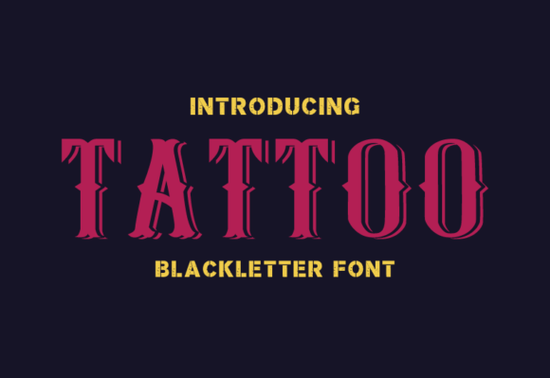
If you’ve ever wanted your designs to carry the weight and character of traditional tattoo lettering, Tattoo Font offers a clean yet bold blackletter style that’s both timeless and versatile. Designed with clarity and impact in mind, it brings the raw energy of hand-inked script into digital projects without overwhelming your layout. Whether you’re creating merch, branding materials, or personal art, this font helps you communicate confidence and authenticity two qualities that resonate well with audiences across print-on-demand shops, small businesses, and craft communities.
What makes Tattoo Font stand out among blackletter styles?
Blackletter fonts often lean heavily into ornate detailing, which can limit their use in modern design. Tattoo Font avoids that pitfall by balancing classic gothic structure with simplified strokes. The result? A typeface that feels rooted in tradition but works seamlessly in contemporary contexts from apparel graphics to social media banners.
Its thick verticals and sharp serifs give it immediate visual presence, while consistent spacing ensures readability even at smaller sizes. That’s especially useful if you’re designing for products like mugs, phone cases, or stickers where space is limited but legibility matters.
Who should use Tattoo Font and where?
This font shines in projects that benefit from a rugged, expressive tone. Think:
- Print-on-demand sellers creating t-shirt slogans, hoodie logos, or poster art
- Small business owners building brand identities for breweries, barbershops, or music venues
- Crafters making vinyl decals, embroidery patterns, or laser-cut signage
- Digital designers working on album covers, event flyers, or YouTube thumbnails
Because it’s a single-style font (not part of a large family with multiple weights), it’s best used for headlines, short phrases, or accent text not body copy. Pair it with a clean sans-serif like Montserrat or Lato for contrast and balance.
How does it compare to other tattoo-inspired fonts?
Many “tattoo” fonts online mimic shaky hand-drawn scripts or include excessive grunge textures. Tattoo Font takes a different approach: it’s crisp, vector-based, and scalable without losing integrity. That makes it far more reliable for commercial use, especially when printing at high resolution.
Unlike overly distressed alternatives, this font maintains professionalism while still conveying attitude. You won’t need to spend extra time cleaning up jagged edges or inconsistent letterforms it’s ready to use straight out of the box.
Tips for using Tattoo Font effectively
To get the most out of this typeface, keep these practical pointers in mind:
- Avoid all caps for long phrases. While it looks powerful in short bursts (“BORN TO RIDE”), extended uppercase text reduces readability.
- Use generous letter spacing. Slightly increasing tracking (around 20–50 units) enhances its gothic rhythm and prevents letters from visually clumping.
- Limit competing decorative elements. Let the font be the star skip heavy borders, drop shadows, or background patterns that distract from its form.
- Test print output early. If you’re selling physical goods, always do a mockup print to ensure ink density and line weight translate as expected.
Remember, the goal isn’t just to look “edgy” it’s to communicate clearly with personality. Tattoo Font gives you that edge without sacrificing function.
Ready to try it?
If your project calls for boldness with restraint, Tattoo Font delivers exactly that. It’s particularly strong for creators who want heritage-inspired typography without dated complexity.
Before you download, ask yourself:
- Is my message short and impactful? (Ideal for this font)
- Will it appear in contexts where visual authority matters? (e.g., logos, titles, emblems)
- Do I have a neutral or minimal secondary font to pair with it?